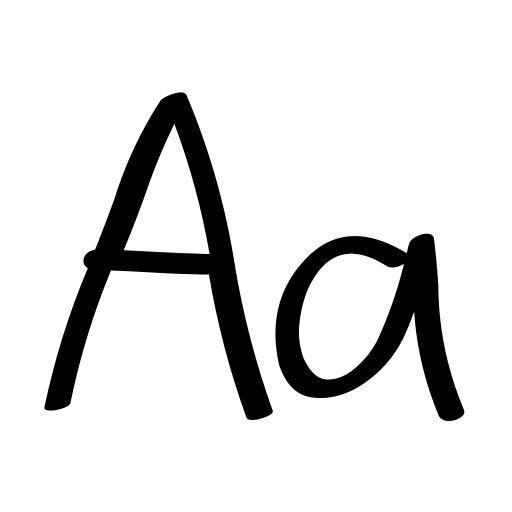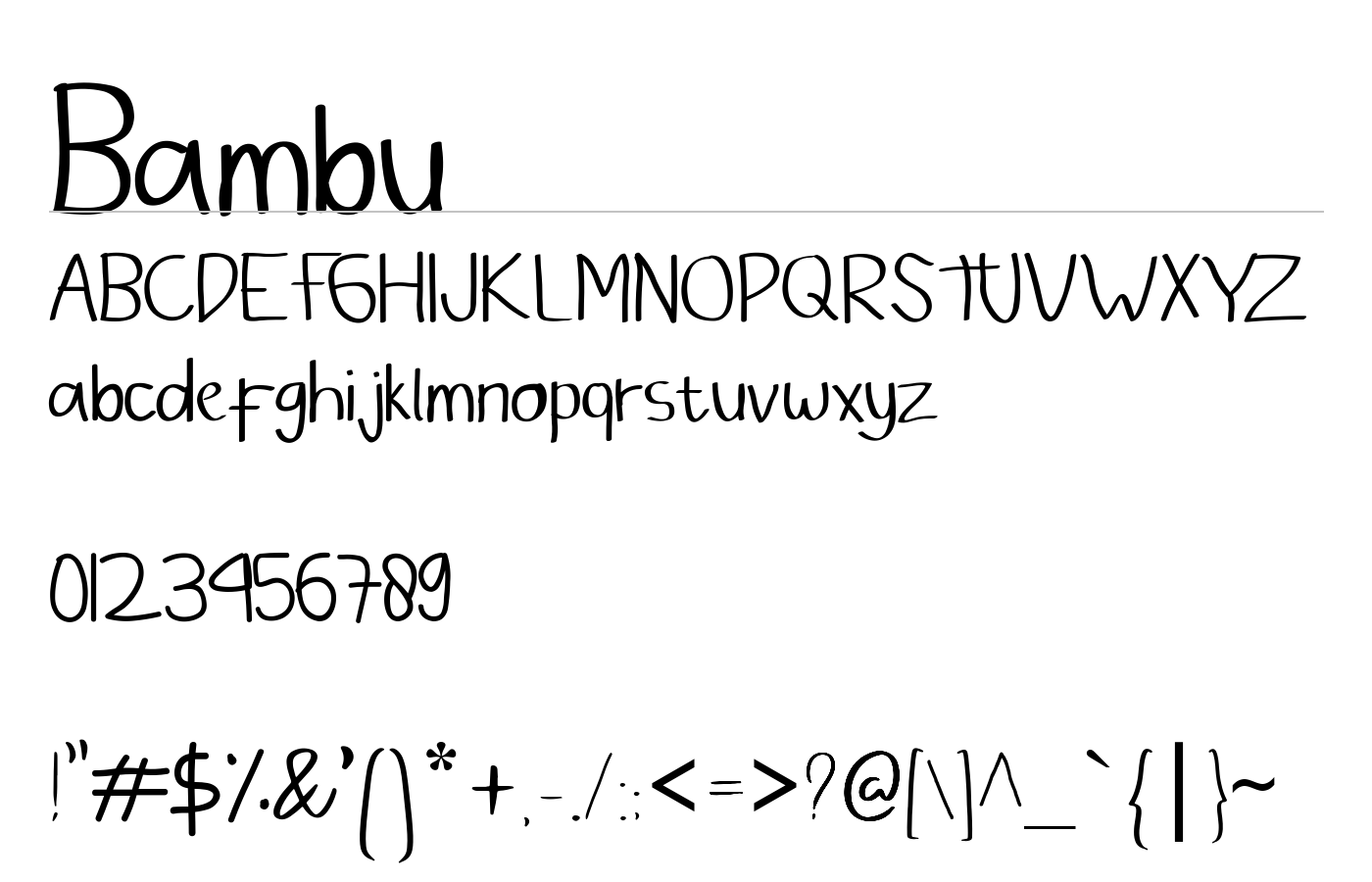
Bambu is a playful, casual sans serif font with a hand-drawn feel, characterized by its narrow, tall letterforms and slightly irregular strokes that create a friendly and approachable personality. Its light weight and airy spacing make it perfect for informal designs, such as children’s books, greeting cards, and creative branding where a warm, personal touch is desired. This font works best for headlines and short text, adding charm and personality without overwhelming the message.
Bambu Font